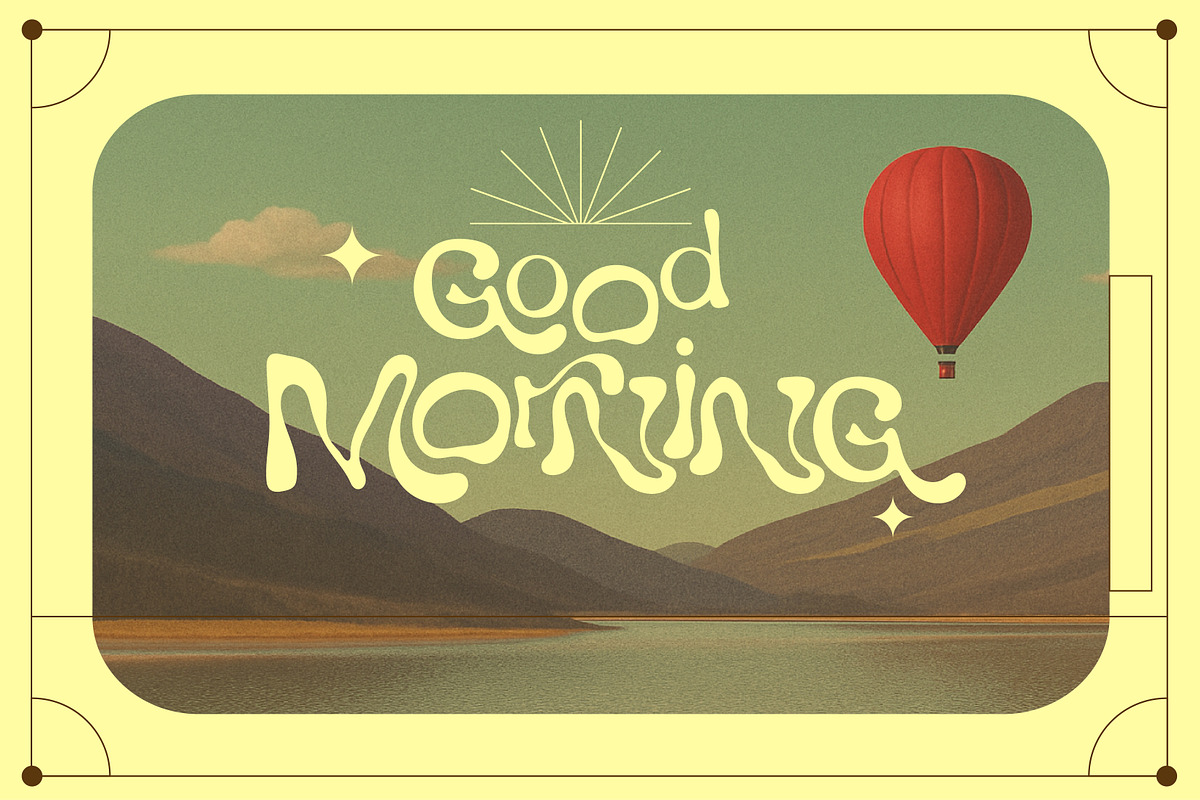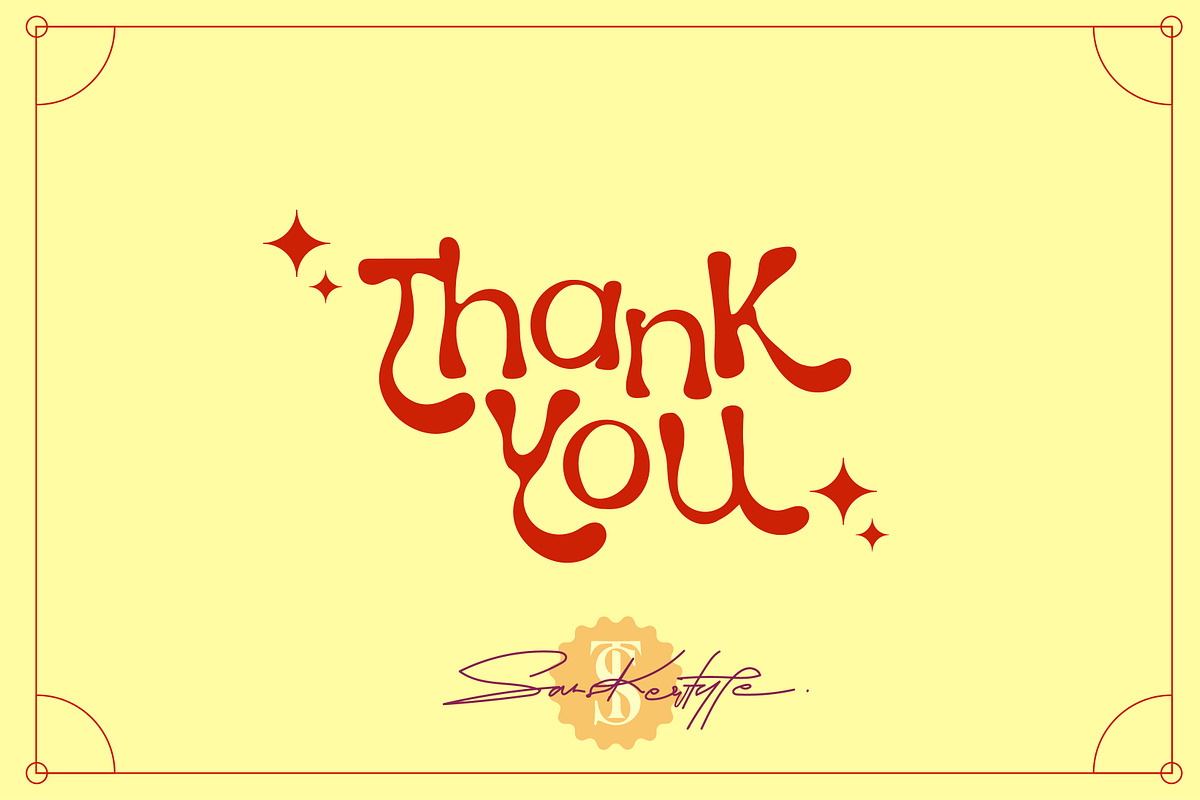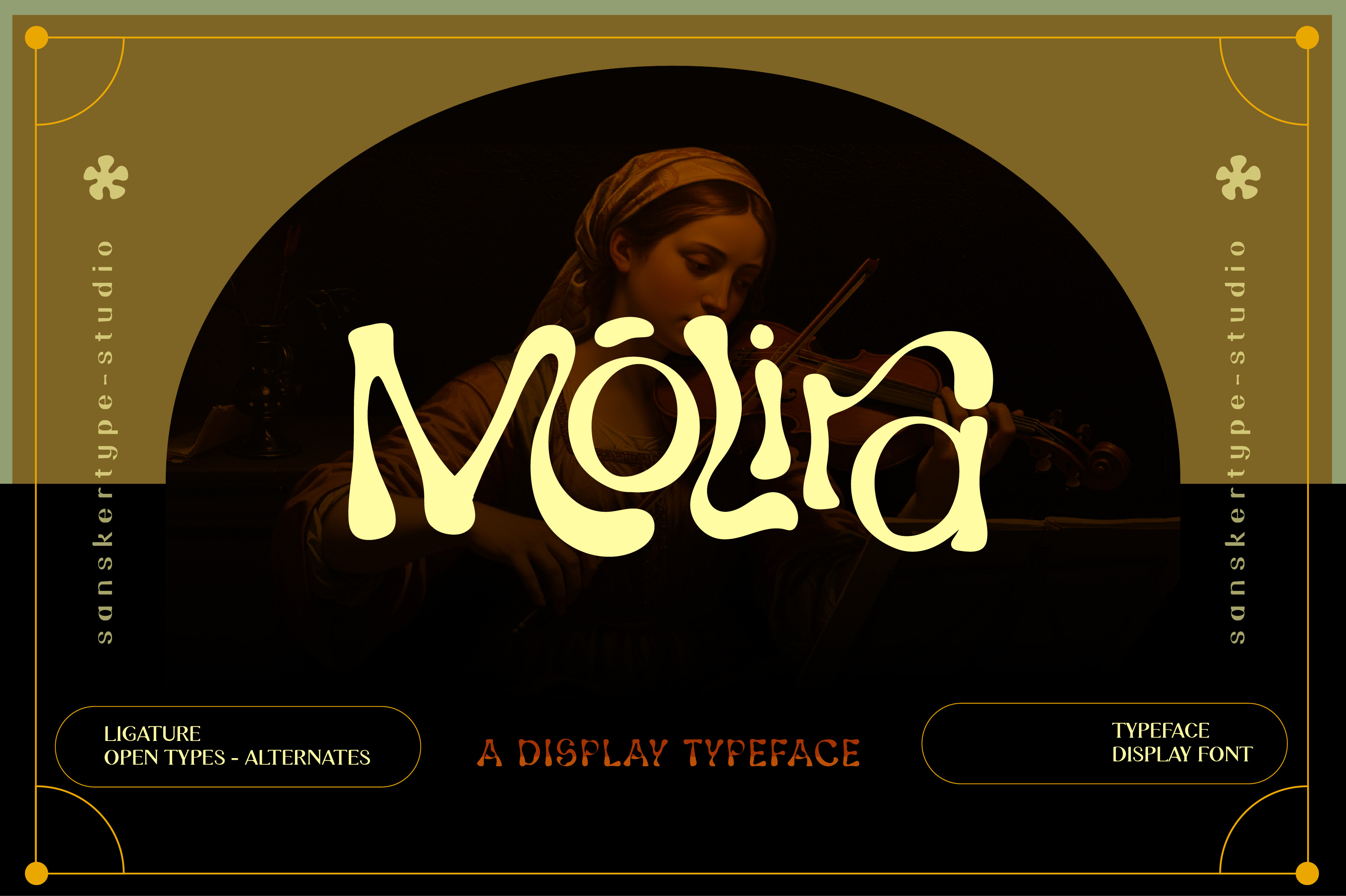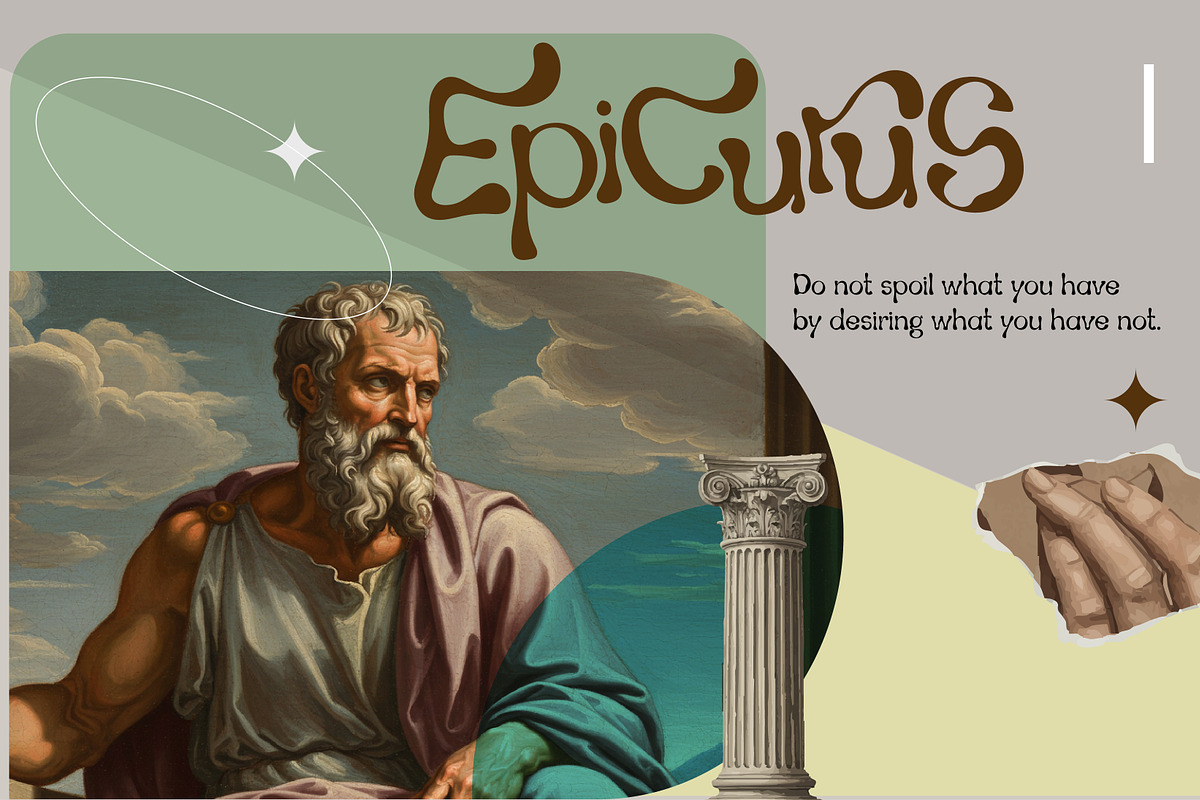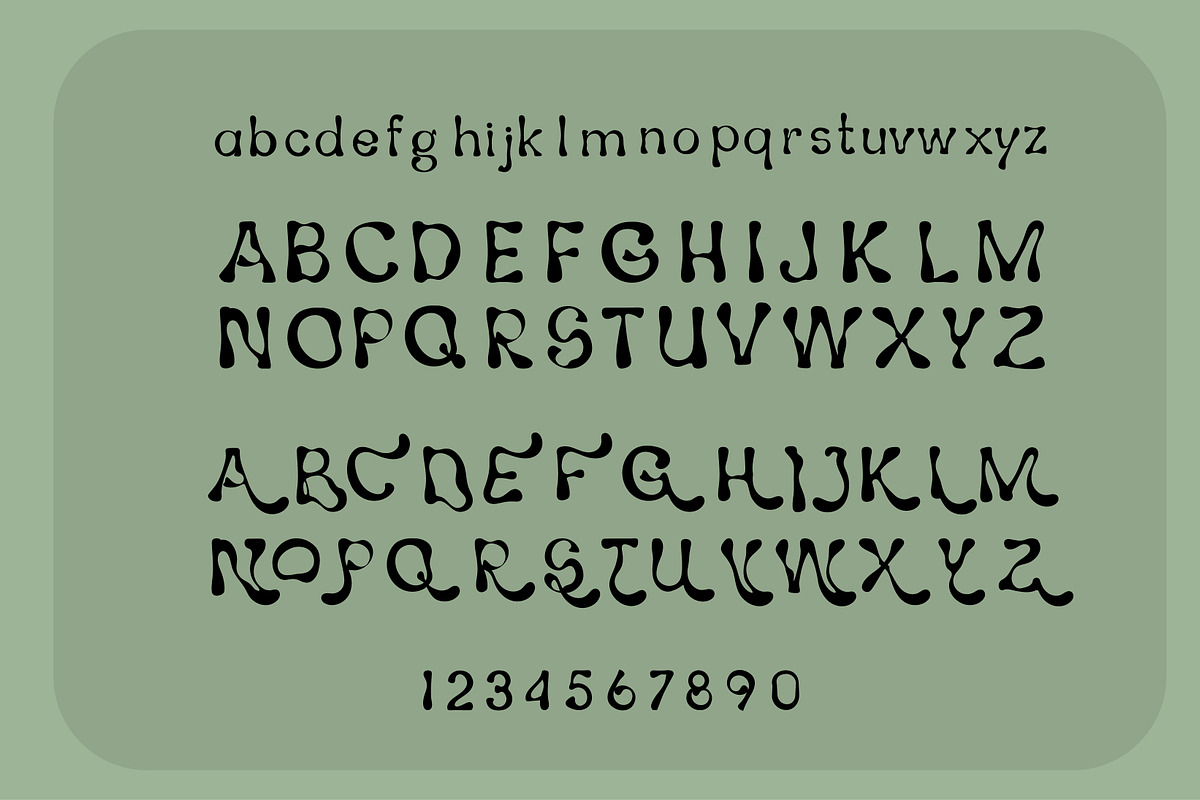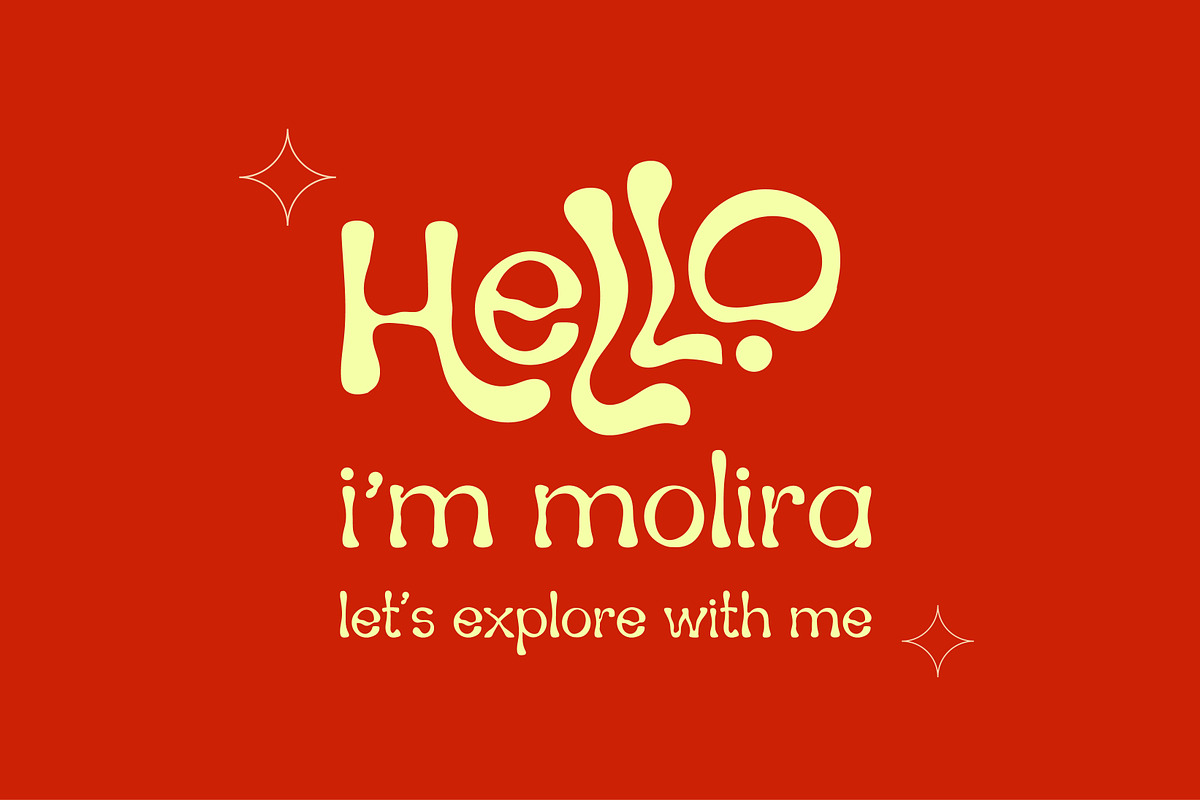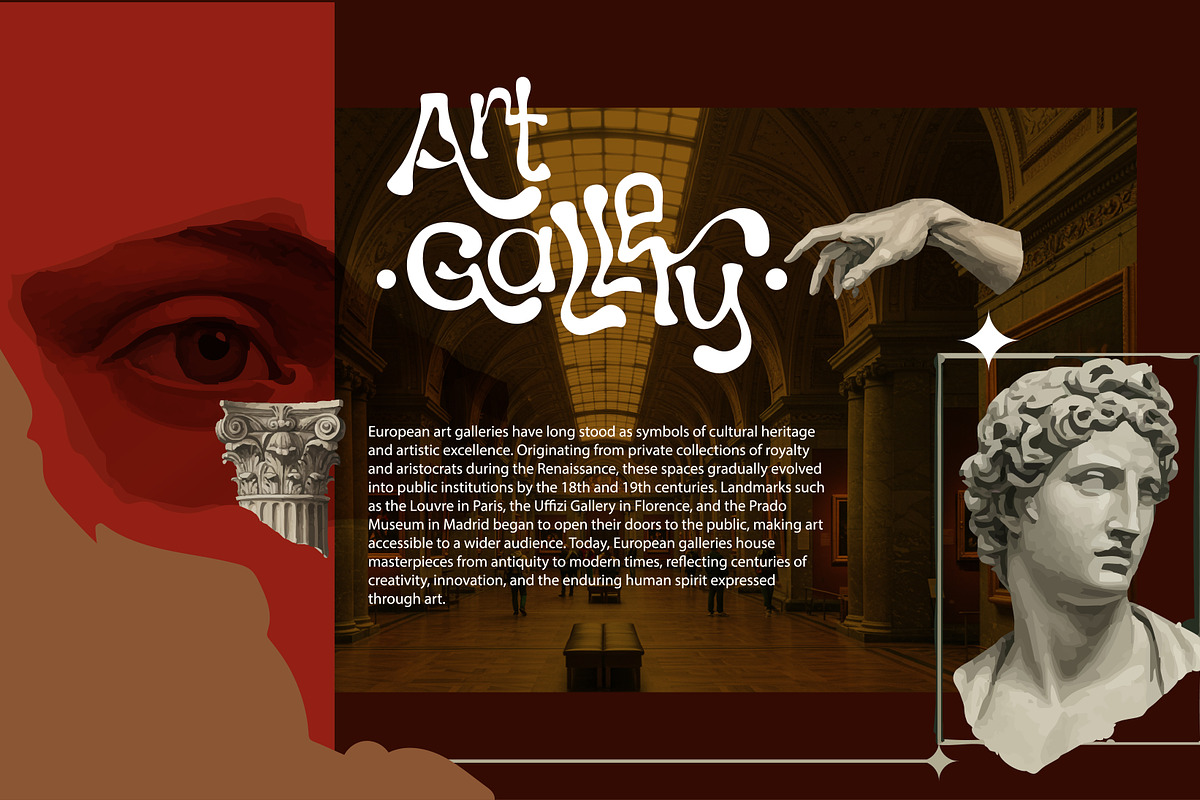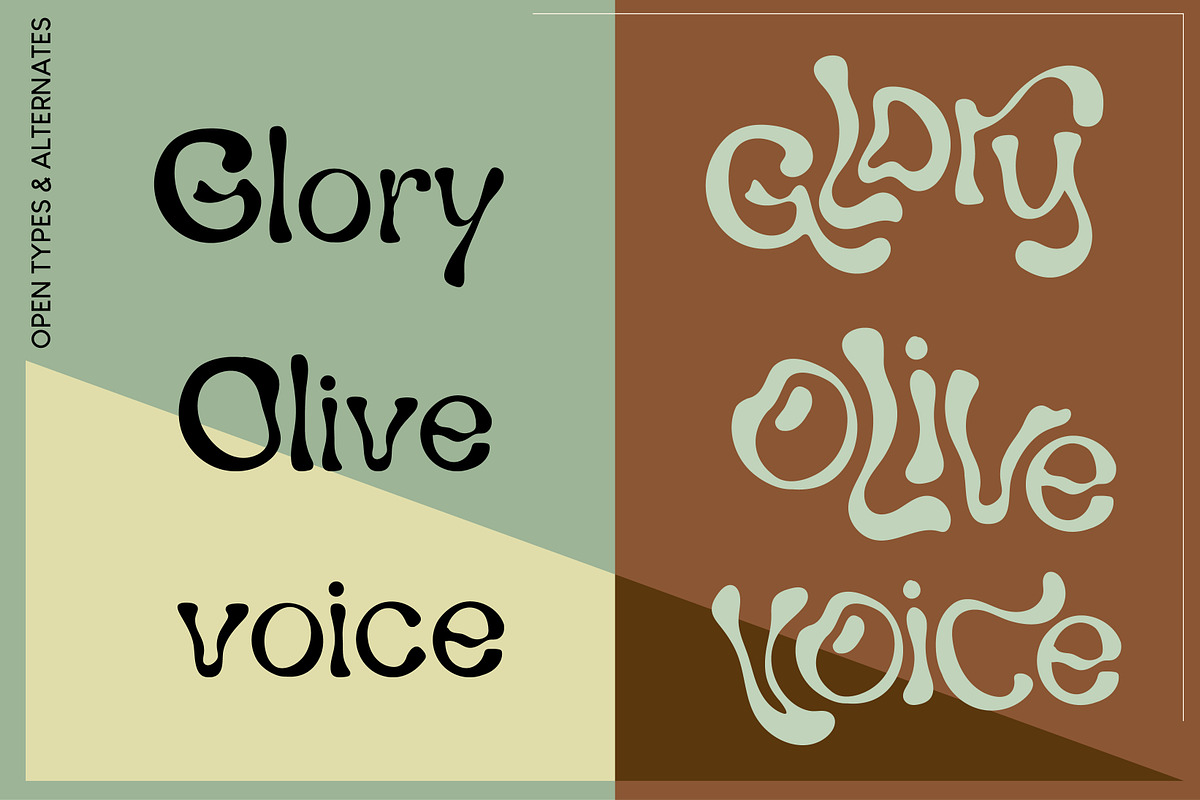
Molira – Liquid Display Typeface
Molira is a Liquid display typeface inspired by liquid shapes. Its fluid curves and dynamic forms create an expressive, energetic look that makes every design stand out.
Perfectly crafted for titles, branding, logos, posters, covers, and aesthetic elements, Molira brings a modern and organic feel to your creative projects. The unique letterforms add an artistic touch while remaining versatile and easy to use across different media.
With Molira, you can achieve fresh, contemporary, and memorable typography—ideal for designers who want to explore bold and distinctive styles in their work.
Make your design names pop with the modern trendy of Molira—where style meets versatility.